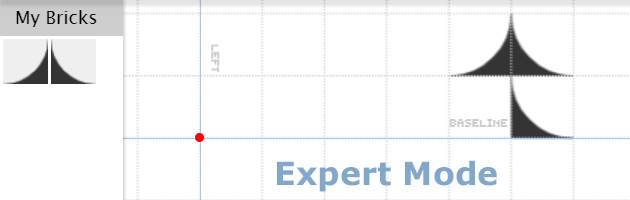
Like, WHOA! A Top Pick in my book, for sure.
W-O-N-D-E-R-F-U-L font, dear Master! It's a pleasure see you in "my" habitual little fonts style, and what an awesome work here! Congratulations.
Beautiful work and imaginative use of bricks!
If this uses 1x1 filters, i'm very impressed!
this is so cool
@thalamic Can you make a sample of you making the A?
Good. Now do the outlines of each glyph.
You also should have arrows to indicate nudging.
And yes, it's a sample.
I'm with you, dear master. Well done.
Surpreme disign. Looks very royal. Good work